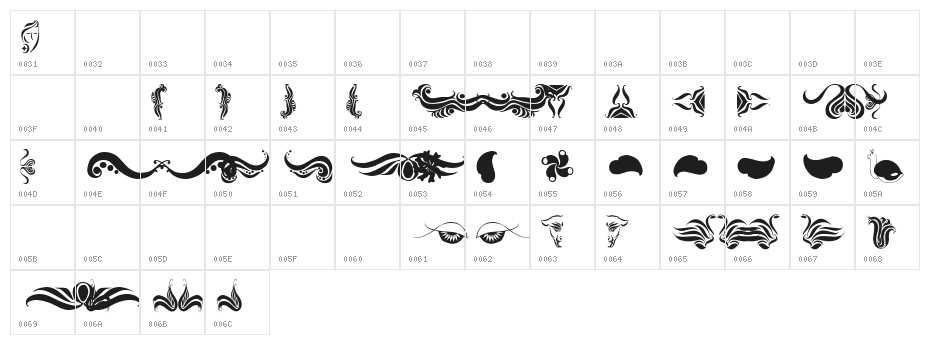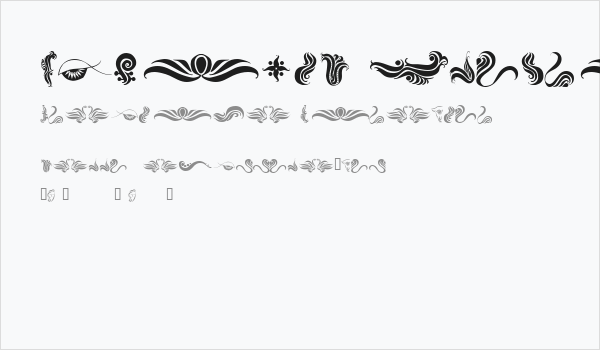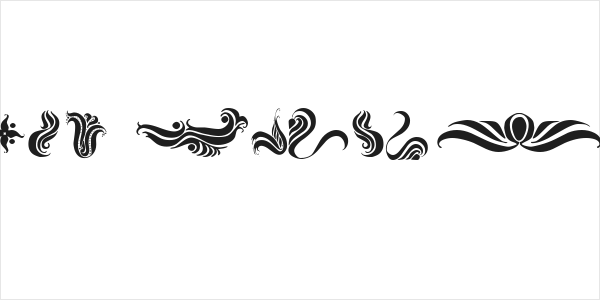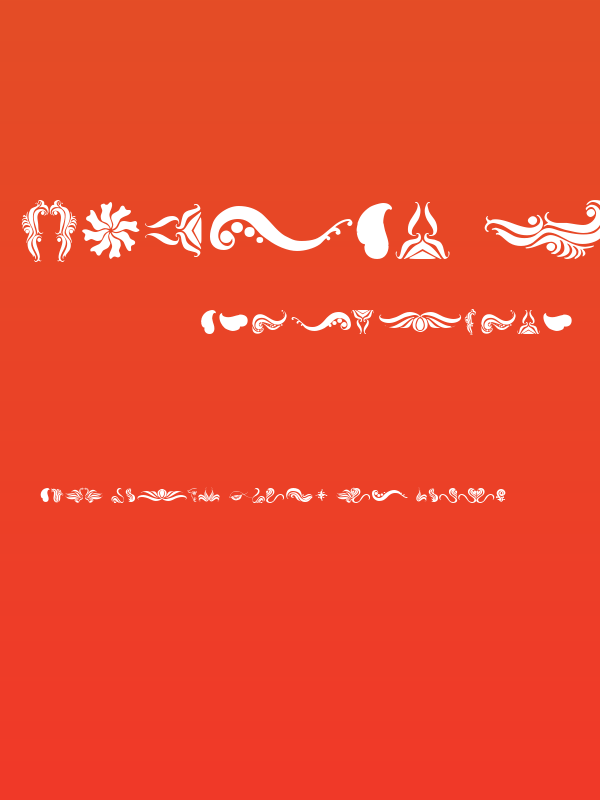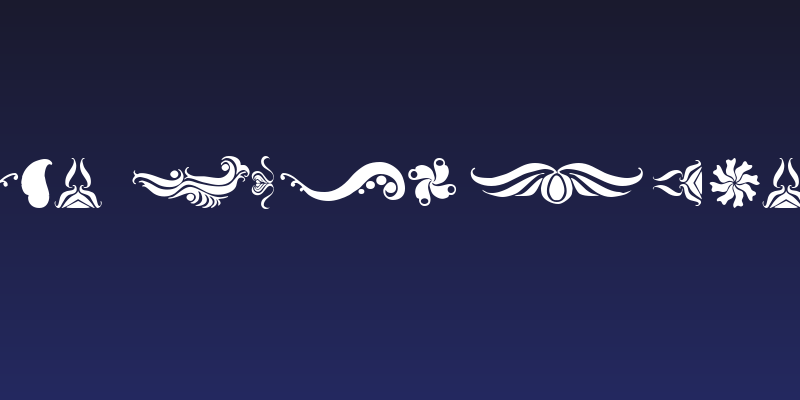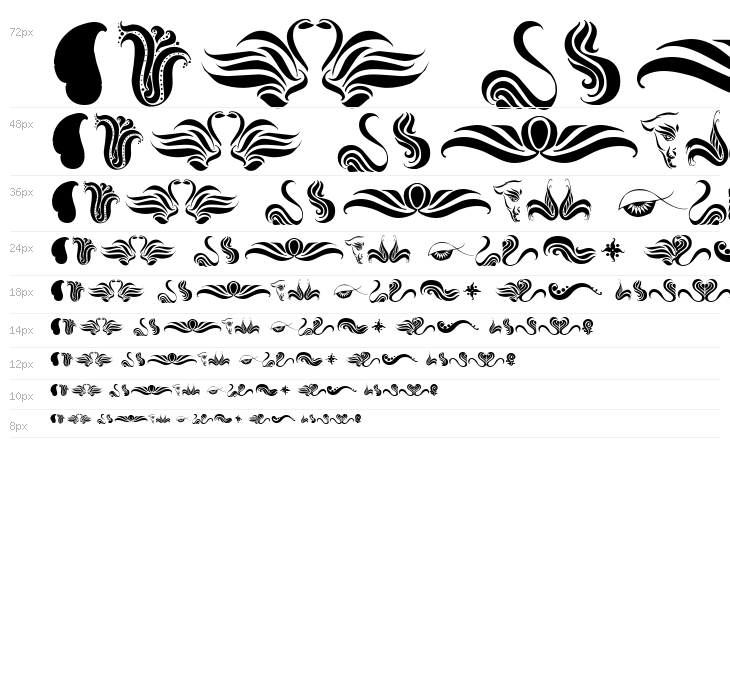
Absinth Flourishes I Font
Absinth Flourishes I Description
A decorative dingbat font featuring intricate flourishes, swirls, and ornamental motifs, including abstract shapes, faces, and organic elements. The glyphs are highly stylized, with bold strokes and a strong visual presence, suitable for embellishing designs.
| Overall Style | Decorative, Vintage, Art Nouveau |
| Use Case | Borders, embellishments, decorative accents |
| Proposed Projects | Invitations, certificates, decorative borders, vintage posters, branding accents, packaging design. |